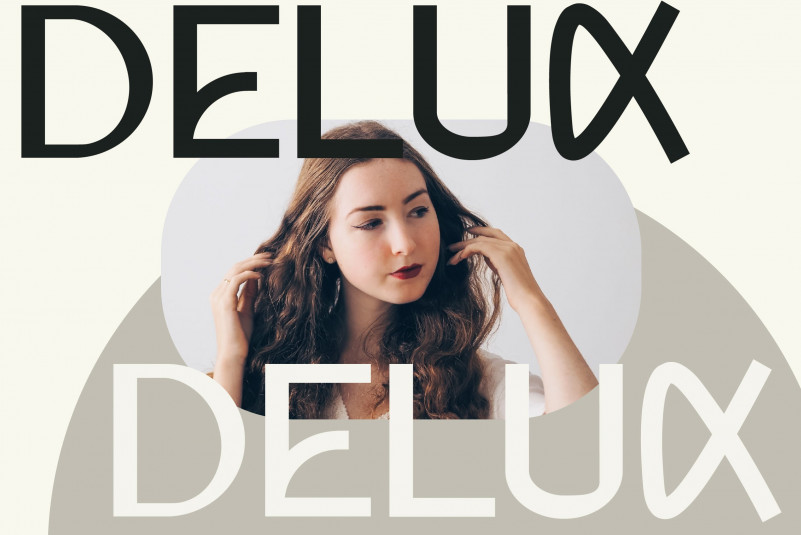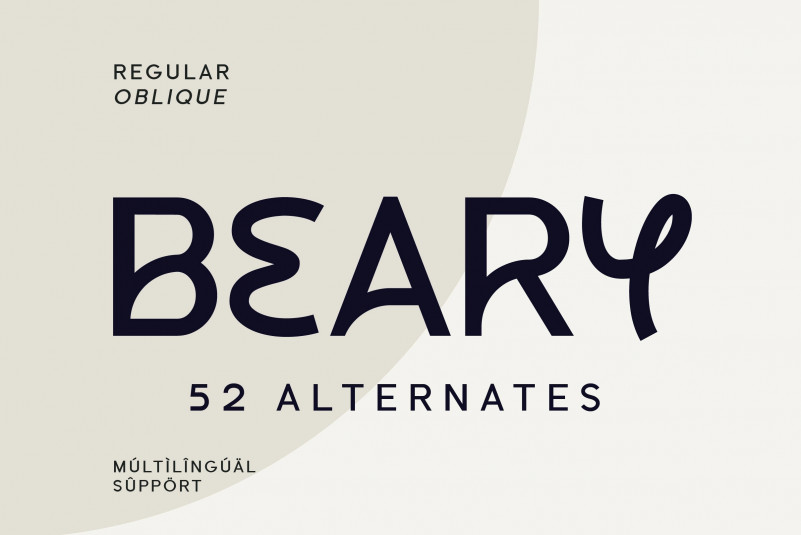
Beary Font
Beary Sans Serif Font is a stylish and modern sans serif font. You can use this font in a variety of projects to create a unique and distinctive look.